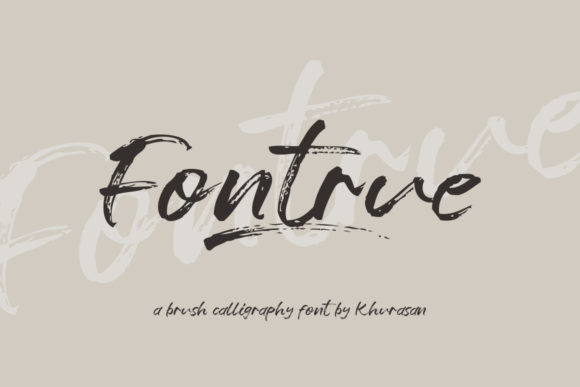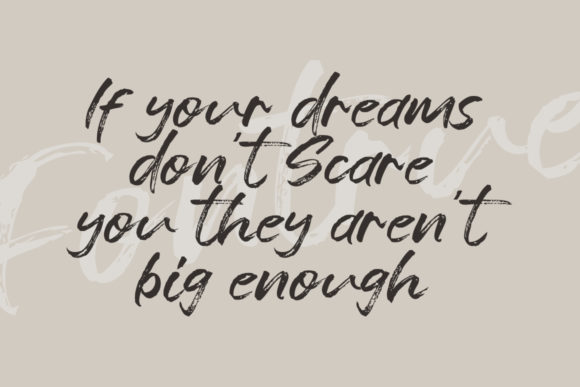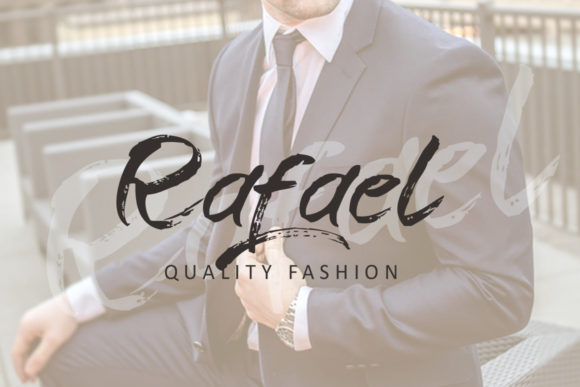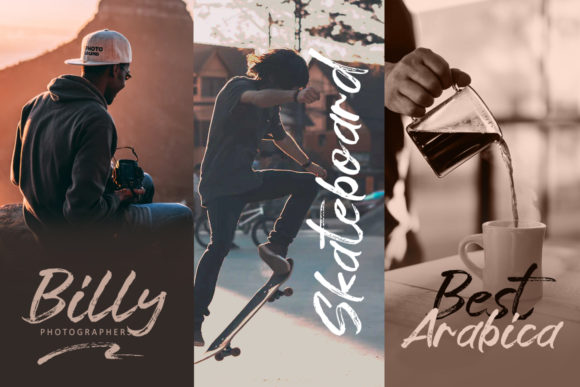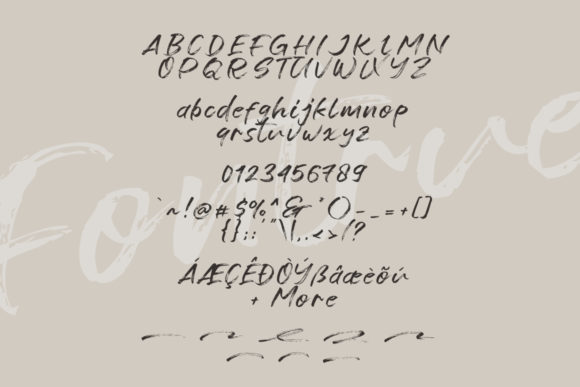
HomeScript FontsFontrue Font Script Fonts Fontrue Font FacebookXPinterestWhatsApp Fontrue Font Poster 2 Fontrue Font Poster 3 Fontrue Font Poster 4 Fontrue Font Poster 5 About Fontrue Font Fontrue is a fresh handwritten brush font with an elegant feel. It will add a retro touch to any design project. DOWNLOAD NOW People also explored Moerostesa Font Languedoc Stay Wildy Font Country Berries Font Home Sweet Home Font Gadista Font Salbatora Font Wallgain Font Bitter Font 387 0 TagsFontrue Font Previous articleHanttopan FontNext articleSweenline Font LEAVE A REPLY Cancel reply Comment: Please enter your comment! Name:* Please enter your name here Email:* You have entered an incorrect email address! Please enter your email address here Website: Save my name, email, and website in this browser for the next time I comment. Personal Use Free Lion Teen Personal Use Free Read more about this font Ciggs Personal Use Free Read more about this font Mold Papa Personal Use Free Read more about this font Laneway Personal Use Free Read more about this font BLOG Top 10 Handwritten Fonts That Elevate Your Designs Top 10 Handwritten Fonts That Will Elevate Your Designs Handwritten fonts bring a warm, personal touch to every creative project. Whether you're designing logos, invitations,... Exploring Font Trends To increase your work productivity, choose the most readable fonts. Free vs Paid Fonts: Why Investing in Premium Fonts Is Worth It